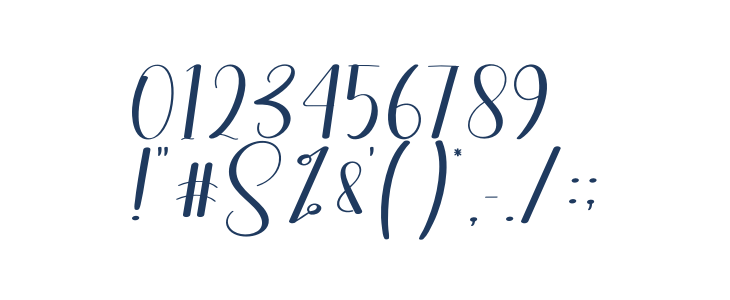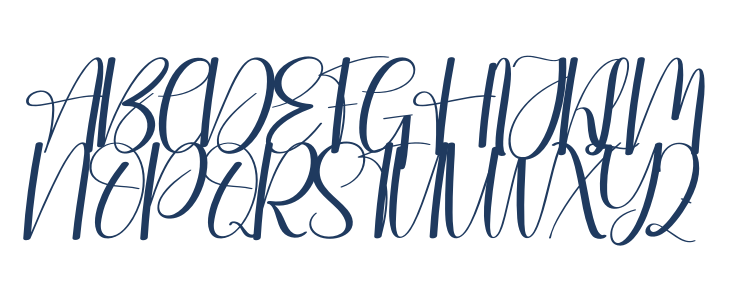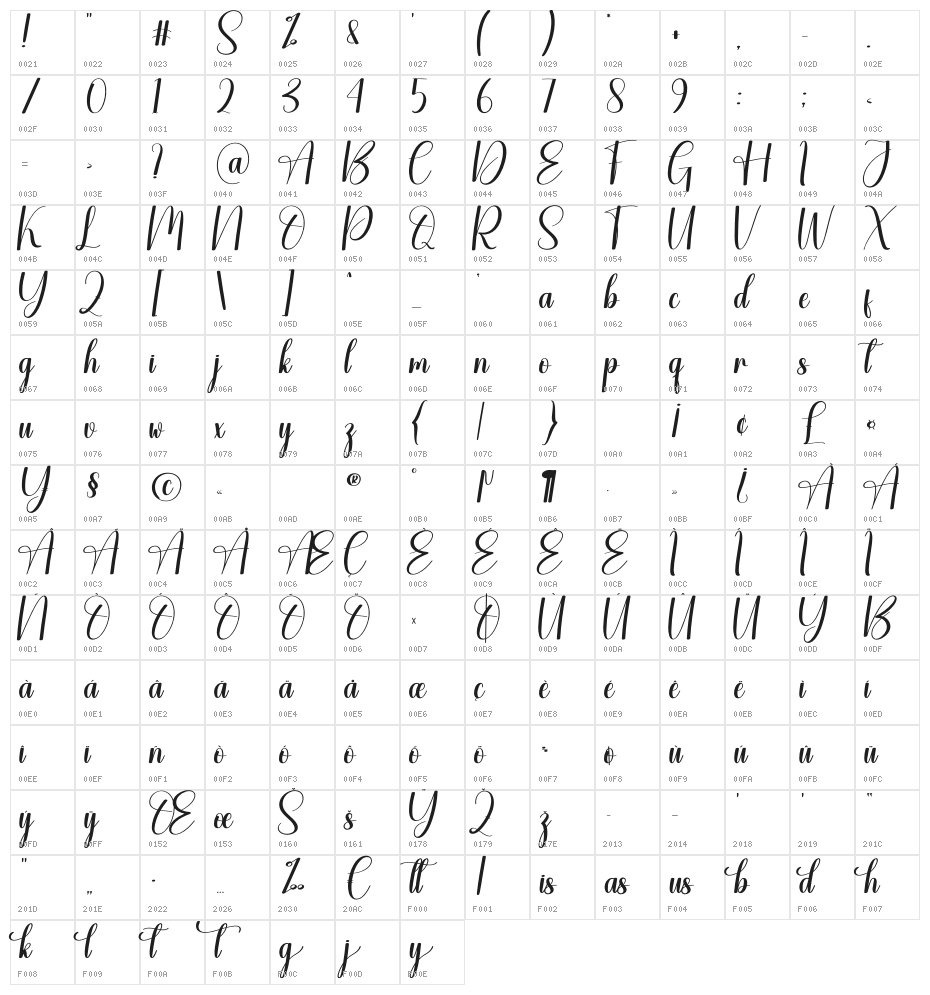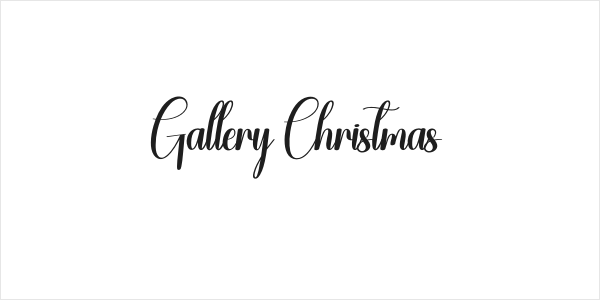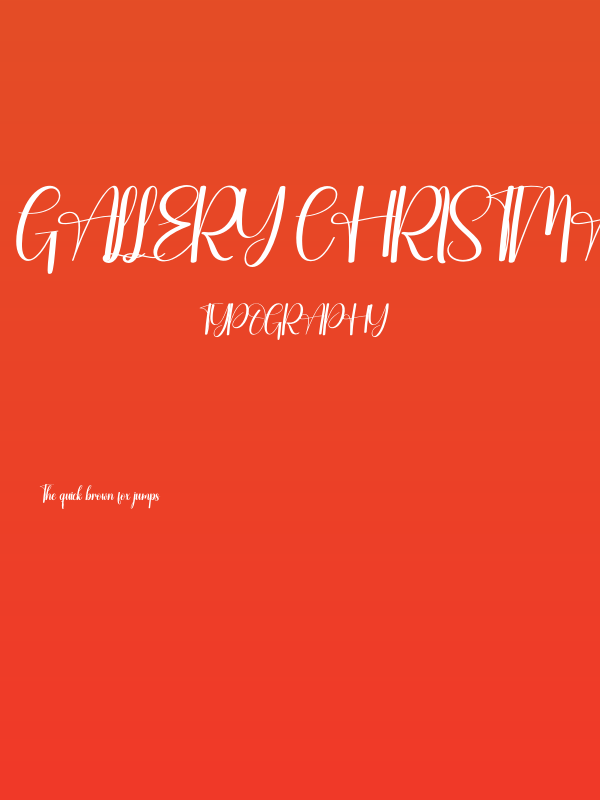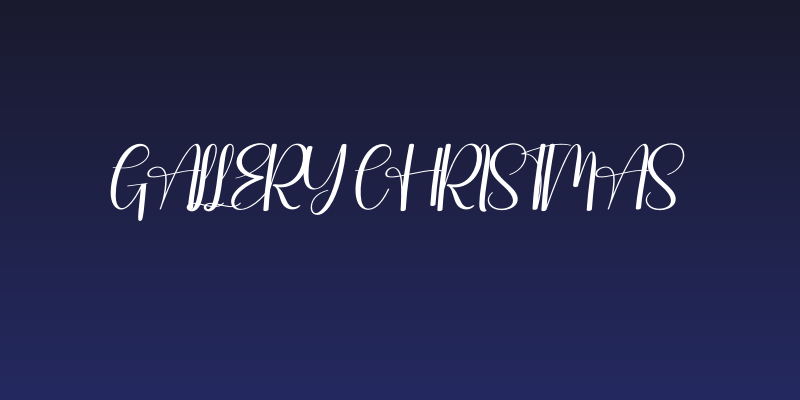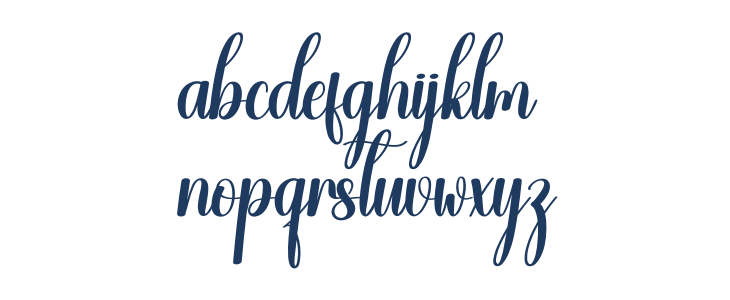
Gallery Christmas Font
Gallery Christmas Description
A decorative script font with elegant, flowing letterforms and high contrast between thick and thin strokes. The uppercase characters are tall and feature dramatic flourishes, while the lowercase letters are more compact and rounded. Numerals and symbols maintain the same expressive, handwritten style.
| Overall Style | Decorative, Festive, Elegant |
| Use Case | Headlines, Logos, Invitations, Greeting cards |
| Proposed Projects | Holiday cards, invitations, branding, event posters, festive packaging. |